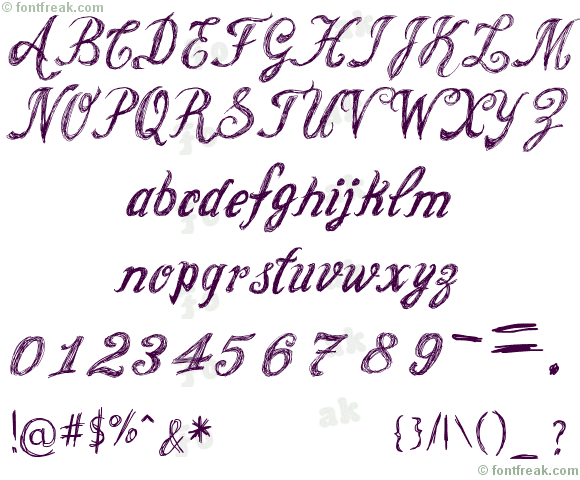
Cursive Option Italic
Cursive Option Italic is a beautifully crafted script typeface designed by Galdino Otten in 2014. This font falls under the cursive category, characterized by its fluid, elegant strokes that mimic handwritten calligraphy. The design features a medium stroke weight with gentle contrast, allowing for legibility while maintaining its decorative charm. The letterforms exhibit graceful curves and flourishes, making it perfect for projects that require a touch of sophistication.
The Cursive Option Italic font is particularly well-suited for a variety of creative applications. It shines in wedding invitations, where its romantic style can add a personal touch to the special occasion. Additionally, it works wonderfully for greeting cards, providing an inviting and warm feel to messages. Restaurant menus benefit from this typeface as well, as it can evoke a sense of fine dining and elegance. Furthermore, content creators can use this font in blog headers or social media graphics to capture attention and convey a friendly yet classy vibe.
Target audiences for this font include graphic designers looking to enhance their projects with a unique typeface, small business owners who want to create memorable branding materials, and content creators seeking to elevate their digital presence. The versatility of Cursive Option Italic makes it an excellent choice for anyone wanting to add an artistic flair to their designs.
What truly sets the Cursive Option Italic font apart is its ability to combine formality with a personal touch. Its flowing lines and expressive characters create a sense of warmth and invitation, making it an ideal choice for projects that aim to connect with an audience on a deeper level. For those interested, the Cursive Option Italic font free download is an excellent opportunity to incorporate this stunning typeface into your design toolkit.